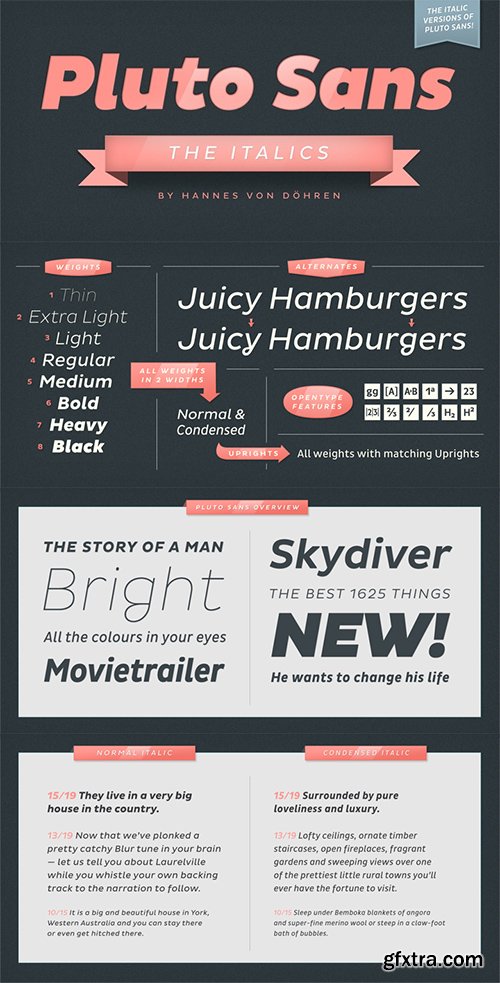
Type designer Hannes von Döhren has created Pluto, a sweet type family consisting of 16 Uprights and 16 Italics; 32 fonts in all. The fonts are informal and friendly at first sight and lend themselves to display settings, however the straight and upright architecture of Pluto also makes it perfect for longer copy. Because of its large x-height, it even performs nicely in very small sizes. This contemporary type family is ideal for use in retail, cosmetics, food and hospitality applications and advertising.Pluto is equipped for complex, professional typography. The OpenType fonts have an extended character set to support Central and Eastern European as well as Western European languages. Each font includes alternate letters, fractions, lining-, tabular numbers, scientific superior/inferior figures and a set of arrows.